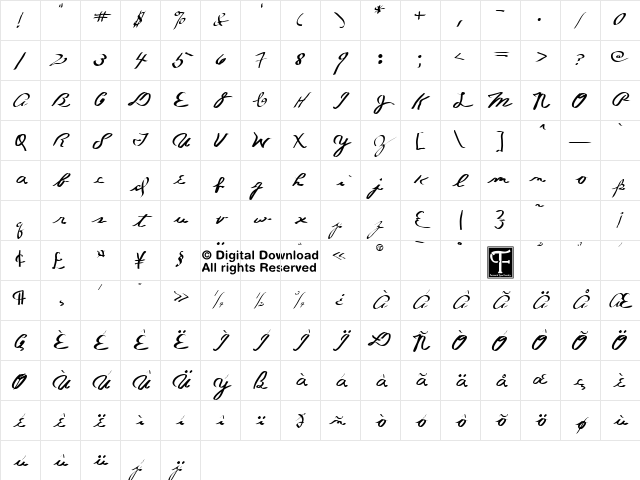
Complete Butch Cassidy Regular glyph index. Displaying only characters natively supported by Butch Cassidy Regular font.
Butch Cassidy is a composed and adaptable typeface that performs quietly and consistently across a wide range of design contexts.